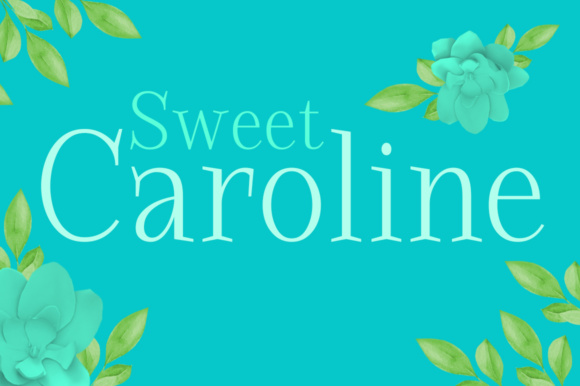
Introducing Sweet Caroline Font, a beautiful serif font that exudes timeless elegance and rustic charm. Its long, slender serifs add a touch of sophistication to your designs, making it perfect for crafting stunning logos, eye-catching headlines, and heartfelt invitations. Whether you're a seasoned designer or just starting out, Sweet Caroline Font is sure to become a beloved addition to your font collection.
With its versatility and legibility, Sweet Caroline shines in both body text and headlines. Its thin, tall serifs create a delicate balance that ensures your words are easy to read, even in small sizes. Whether you're crafting brochures, creating social media graphics, or designing websites, Sweet Caroline Font will effortlessly elevate your designs and leave a lasting impression.
Step into a world of creative possibilities with Sweet Caroline Font. Its timeless appeal makes it perfect for a wide range of projects, from vintage-inspired branding to modern, minimalist designs. Let your imagination soar as you create logos that speak volumes, headlines that grab attention, and wedding invitations that capture the essence of your love story.
Sweet Caroline Font is more than just a font; it's an artistic expression that adds a touch of elegance and warmth to your designs. Its delicate serifs dance across the page, creating a visual symphony that captivates the eye and stirs the emotions. With Sweet Caroline Font, your words will come alive, enchanting your audience and leaving them yearning for more.